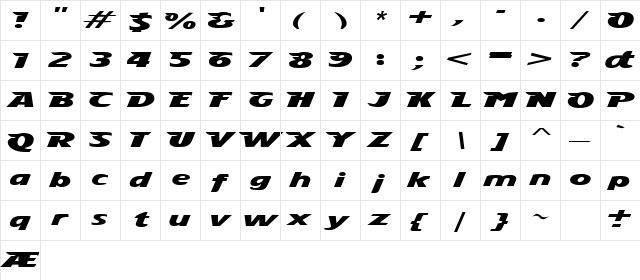
StingRay Extrabold Font Preview
StingRay Extrabold
Design Context for StingRay Typeface
StingRay is a composed and adaptable typeface that performs quietly and consistently across a wide range of design contexts. The heavy weight commands attention and anchors typographic hierarchies.